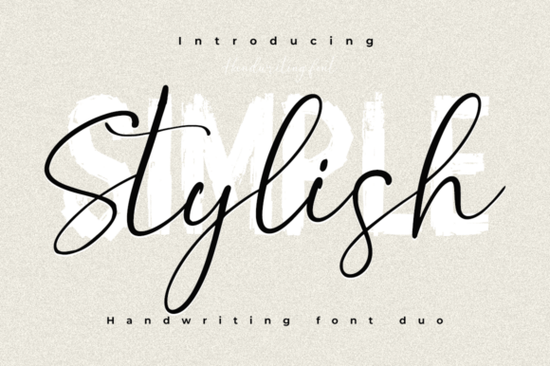
If you're looking for a brush font that feels natural and authentic, Simple Stylish Font is worth exploring. It’s not just another digital typeface it’s a handmade creation with real character, designed to bring warmth and personality to your projects. Whether you’re working on invitations, branding, or print-on-demand designs, this font duo adds a touch of thoughtful craftsmanship.
What makes Simple Stylish Font stand out?
The font was developed with care, focusing on organic texture and flow. Unlike many digital fonts that feel uniform or overly polished, this one keeps the subtle imperfections that come from hand-drawn strokes. That authenticity gives your work a personal, artisanal feel perfect if you want to avoid the generic look common in mass-produced designs.
It’s ideal for anyone who values unique typography but doesn’t want to spend hours creating their own. The design balances simplicity with style, making it easy to use without sacrificing visual impact. You can pair it with clean sans-serif fonts for contrast, or use it alone for bold statements.
Where can you use this brush font?
- Wedding invitations – Adds elegance and a handmade charm.
- Brand logos – Gives small businesses a distinctive identity.
- Print-on-demand products – Works well on mugs, T-shirts, and greeting cards.
- Blog headers and social media graphics – Helps your content stand out.
Because it's a script font with consistent stroke variation, it reads clearly even at smaller sizes. This makes it practical for both large display uses and detailed text elements.
How does it compare to similar fonts?
If you’ve explored other brush-style fonts like Creative Market Script Fonts, you’ll notice that many lean toward extreme flair or complexity. Simple Stylish Font takes a different approach focused on balance and readability. It’s not flashy, but it’s memorable.
For example, while Beauty Gingerbread has a festive, holiday vibe, and Beyond Perfection leans into high-end luxury, this font stays grounded and versatile. It fits a wide range of themes without feeling out of place.
You might also consider Tail for a more modern take, but Simple Stylish Font brings something different: a quiet confidence in its form. It doesn’t shout for attention it earns it through consistency and presence.
Simple Stylish Font isn’t trying to be everything to everyone. Instead, it does one thing exceptionally well: deliver a reliable, expressive brush script that feels genuine. If you value authenticity over trends, this could become a staple in your design toolkit.
Whether you're a small business owner, a craft enthusiast, or a designer building a portfolio, this font offers flexibility without compromise. It’s not flashy, but it’s effective and that matters.